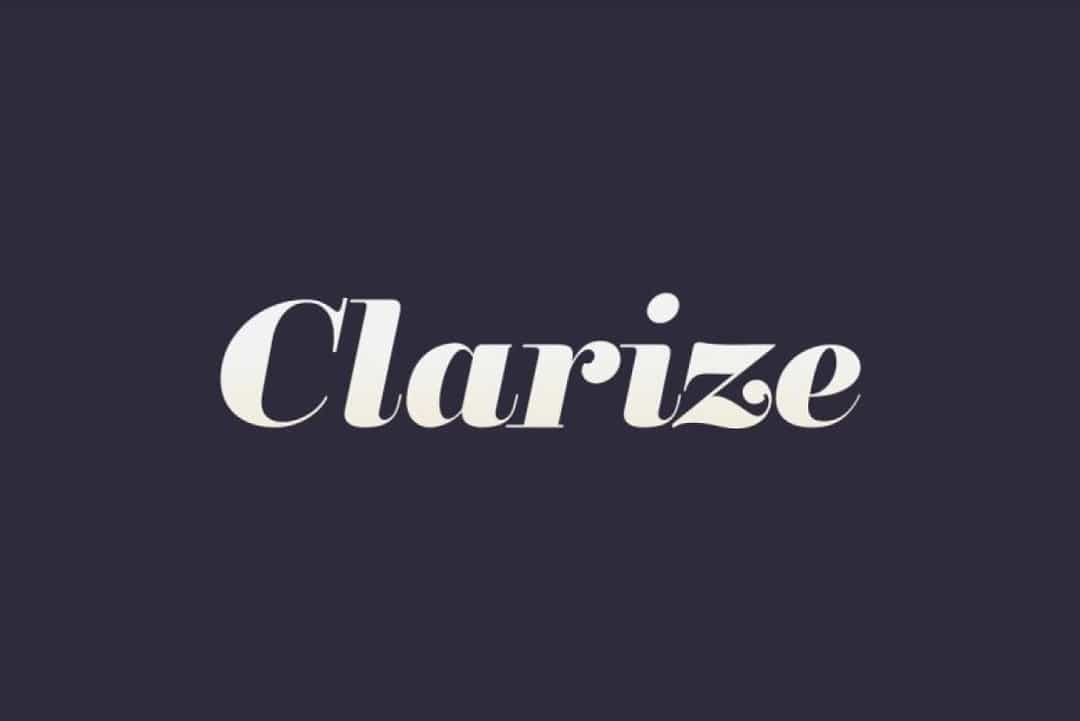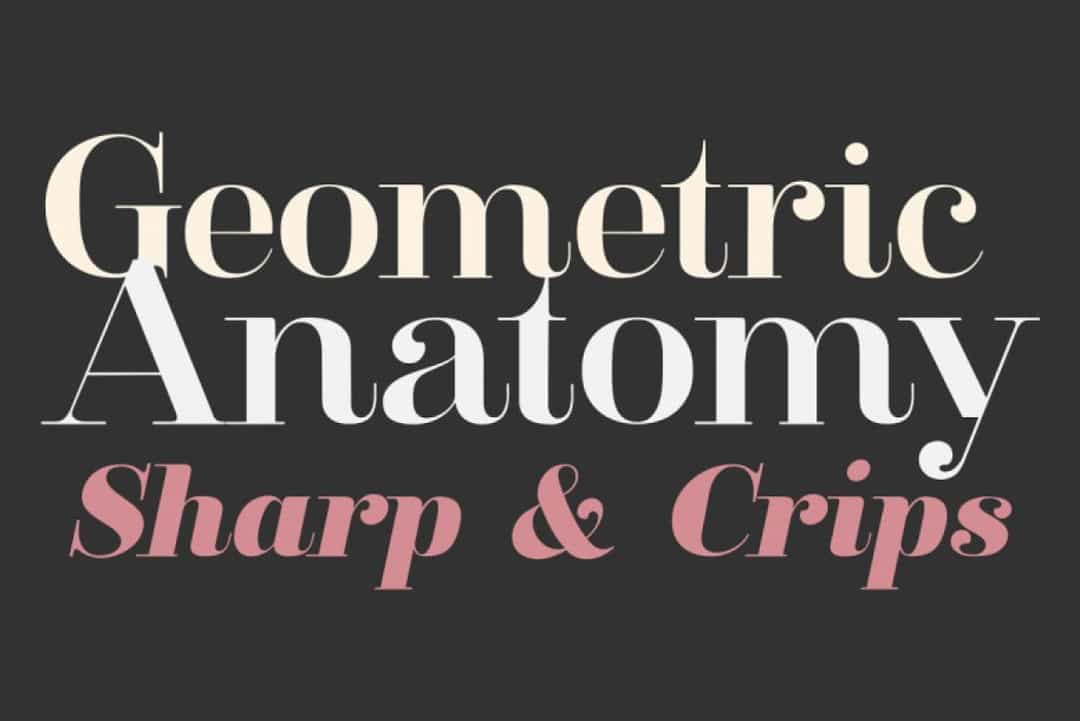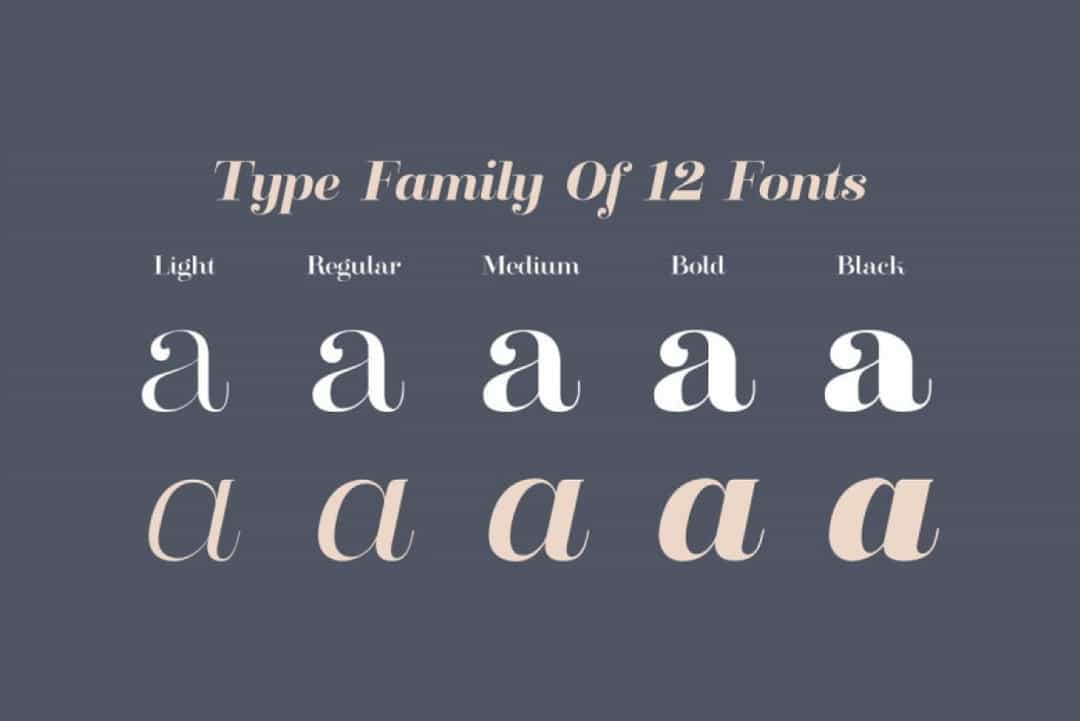
Clarize is an elegant high-contrast serif font family designed with luxury and contemporary styles in mind, which brings the finest elements from Didone style fonts together in one package. Created to be more practical with smooth finishes and modern elegance in mind, this font family makes an excellent choice for designers working within fashion, books magazines blogs packaging advertising branding etc.